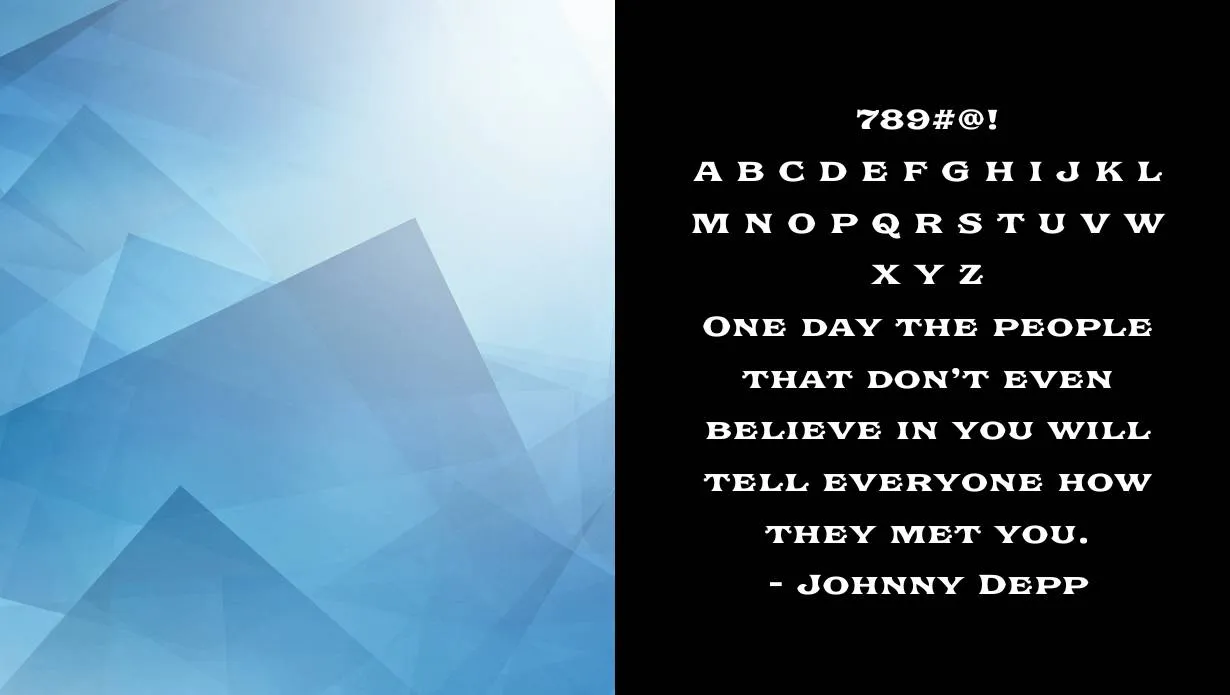
The Ephemera Fascia font is a creation by Ilham Herry that seamlessly blends the elegance of European empire writing styles. This distinct typeface, inspired by historical forms of expression, offers a touch of nostalgia and sophistication to your design endeavors.